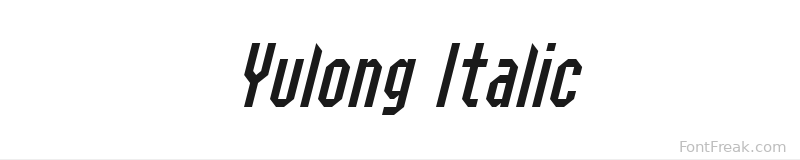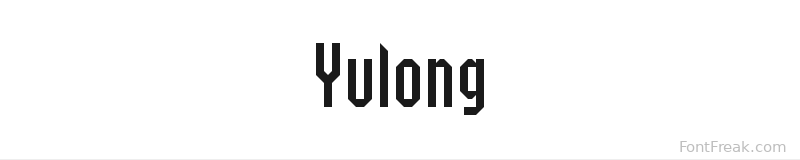
Yulong Italic
Yulong
About Yulong Italic
The Yulong Italic font by GGBot is a striking display typeface that combines modern elegance with a touch of sophistication. As an italic font, it features dynamic slanted letters that convey a sense of movement and energy. The stroke weight is consistent, allowing for clear readability while providing a bold presence. Its clean lines and moderate contrast between thick and thin strokes enhance its visual appeal, making it suitable for a variety of design contexts. The spacing is carefully considered, ensuring that each letter stands out without feeling overcrowded.
This font is ideal for a range of specific use cases. For wedding invitations, Yulong Italic brings an elegant touch that can enhance the overall aesthetic of the announcement. In the realm of branding, it can effectively be used on restaurant menus to create a sophisticated yet approachable atmosphere. Additionally, its unique flair makes it perfect for movie posters, where attention-grabbing typography is crucial. Graphic designers will find this font useful in promotional materials, such as flyers and brochures, as well as in digital content for social media posts, where it can help convey a stylish and modern vibe.
Targeting graphic designers, small business owners, and content creators, the Yulong Italic font is versatile enough to enhance a wide variety of projects. Its unique qualities lend themselves well to both print and digital applications, ensuring that it meets the diverse needs of today’s creatives.
With its modern aesthetic and versatility, the Yulong Italic font free download stands out as a fantastic choice for those looking to elevate their designs. Its combination of elegance and readability makes it an essential addition to any designer’s toolkit.
Author GGBot